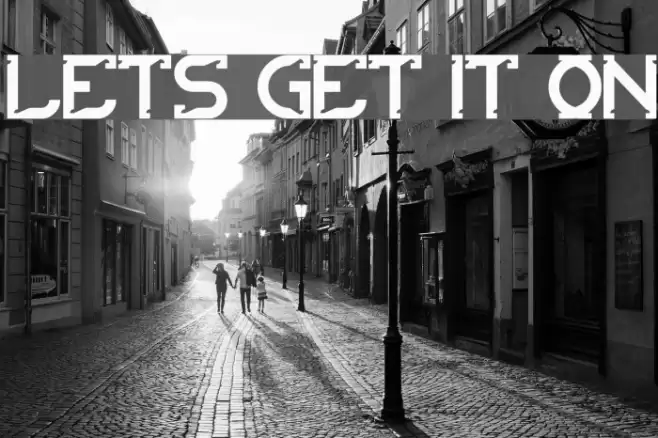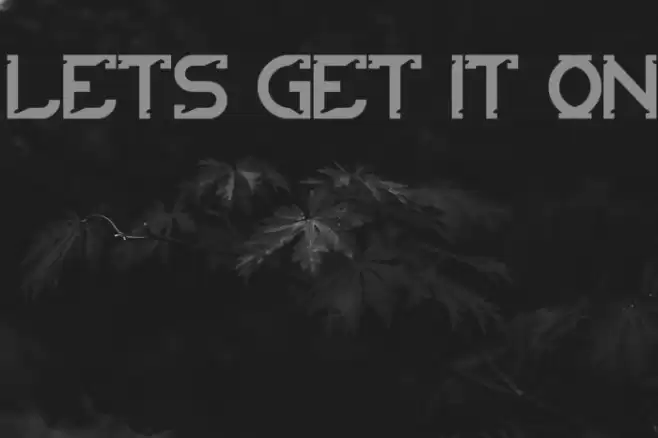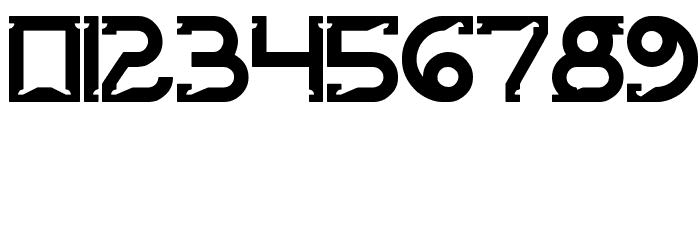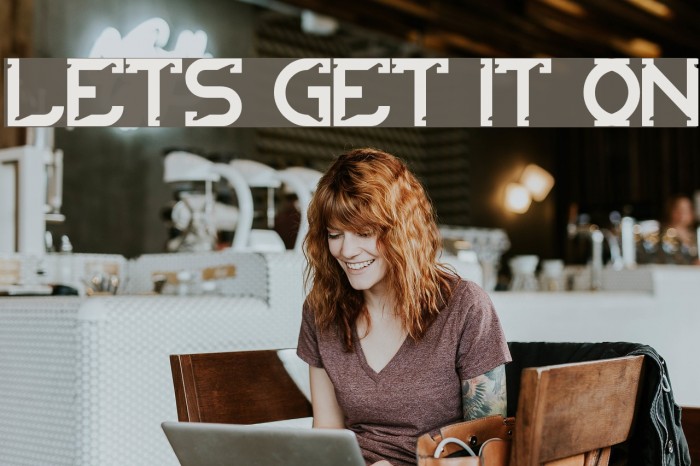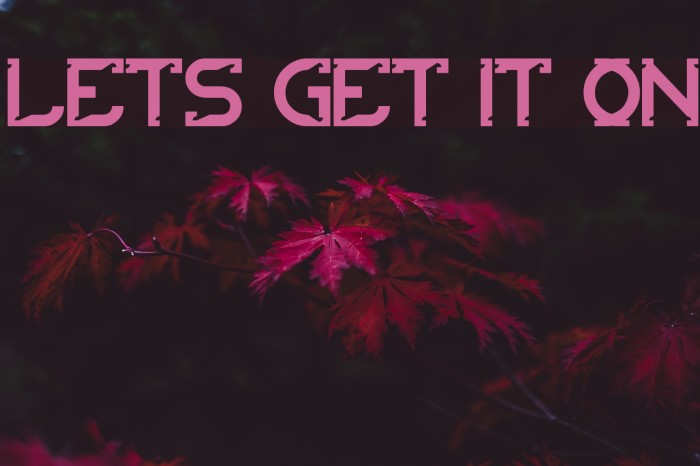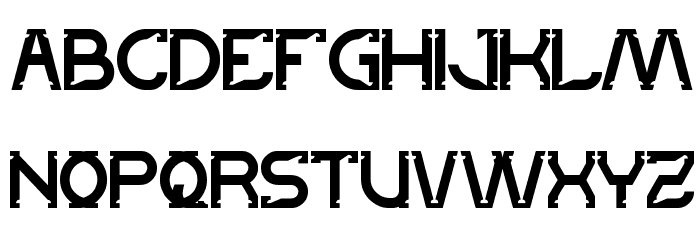
lets get it on Font
lets get it on Description
This font features a bold and geometric design with a modern twist. The characters are constructed with sharp angles and distinct cutouts, giving it a futuristic and industrial feel. The uppercase letters are uniform in height, while the lowercase letters maintain a consistent style that complements the uppercase. The numbers follow the same geometric pattern, ensuring a cohesive look across all characters. The special characters are designed to match the overall aesthetic, making this font suitable for various creative applications.
A bold, geometric font with a modern and industrial style from Uncategorized fonts.
- Proposed Projects: Ideal for branding, posters, album covers, and any project requiring a modern, edgy look.